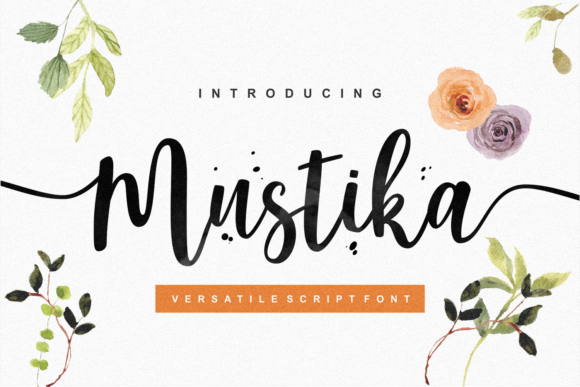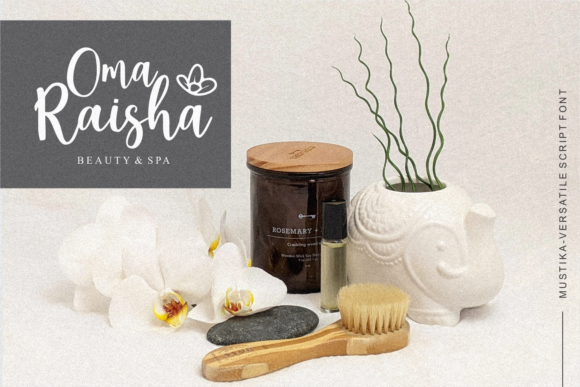
Mustika Font
db-ku.com - Script & Handwritten -- Mustika is a gorgeous and stylish calligraphy font. It was created for wedding invitations, greeting cards, branding materials, business cards, quotes, posters, and more!